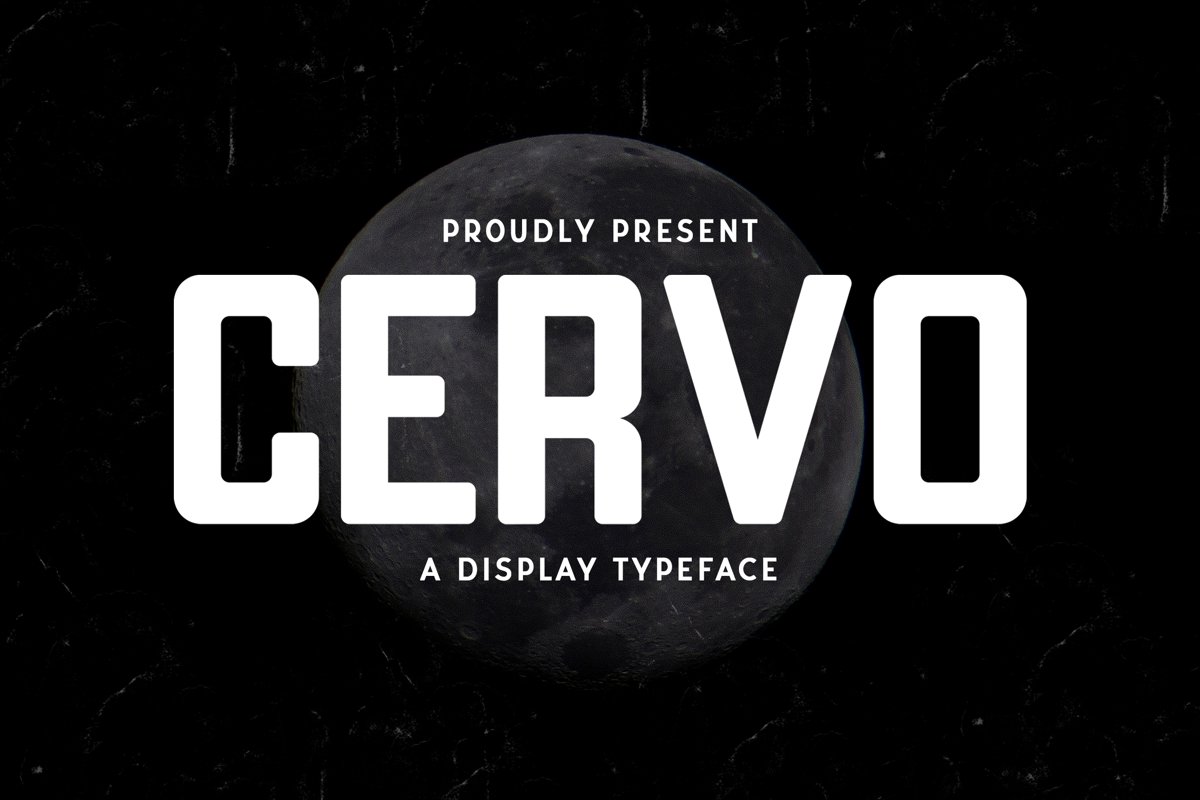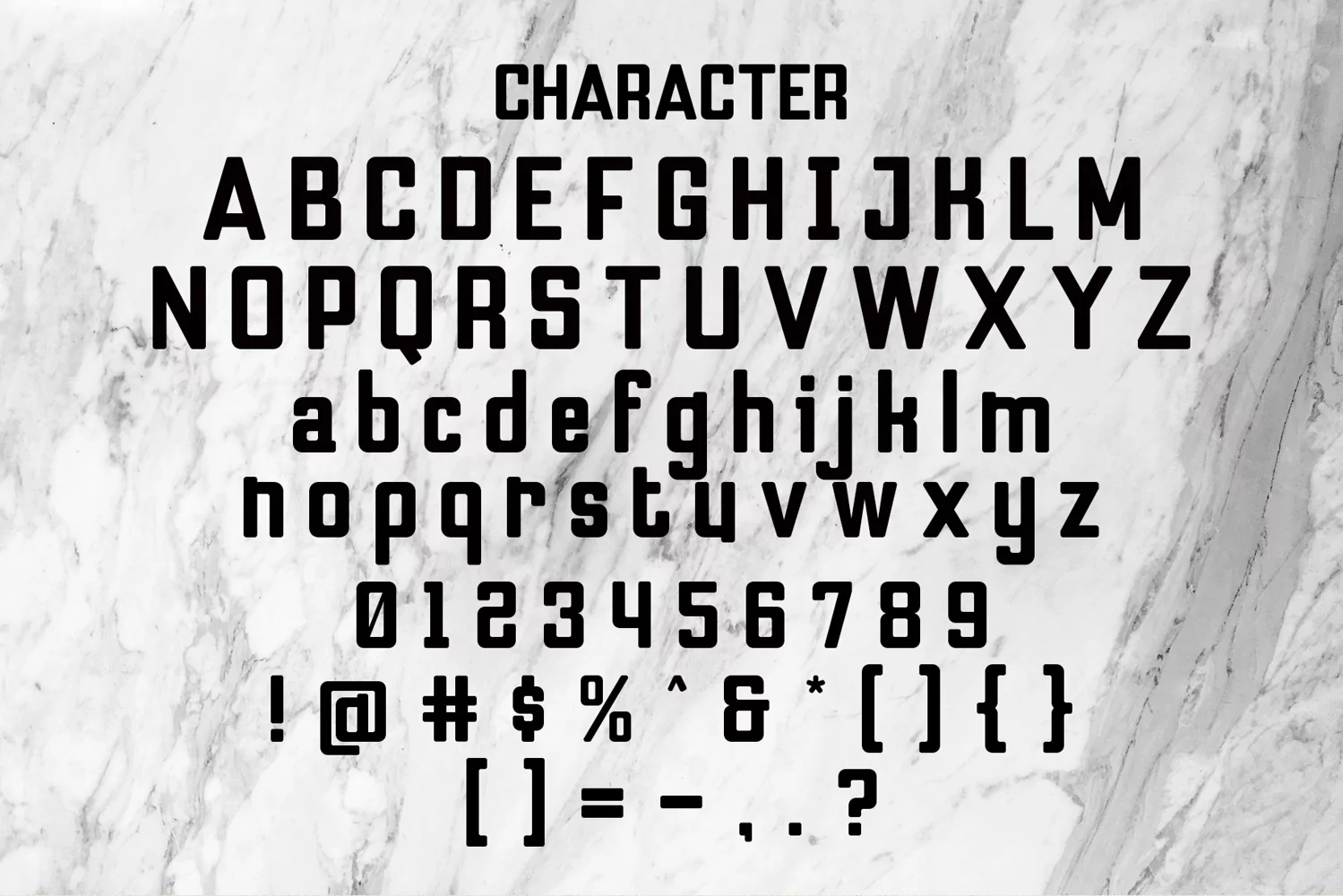
Cervo is a display typeface. Perfect for display, quotes, poster, mockup, sports needs, merchandise, packaging, header, tittle, mug, logo, logotype, badges, emblem, e-sports, and many more.